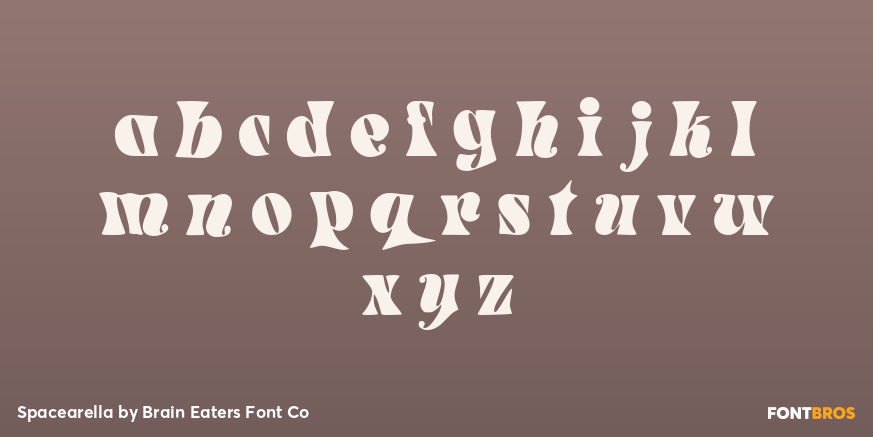
Spacearella
Font Family by Brain Eaters Font Co
Spacearella is a decorative display serif with a playful retro-futurist feel. Its bubbly curves, rounded serifs, flared terminals, and high-contrast strokes give it a distinctly space-age look, balancing whimsical charm with bold poster presence.
With its psychedelic 1970s vibe and novelty styling, this single-style font is especially well suited to headlines, posters, themed branding, packaging, apparel graphics, and other display work that calls for a fun, unmistakably vintage voice. It feels expressive and eye-catching without losing its graphic clarity.
Designed by Brain Eaters Font Co, Spacearella brings together retro sci-fi attitude and decorative warmth in a way that feels both quirky and confidently styled.